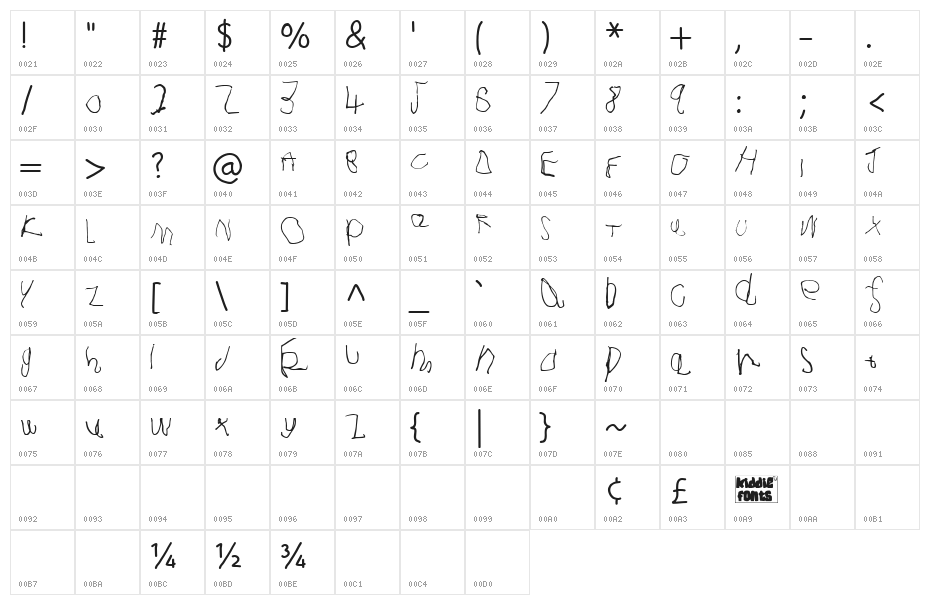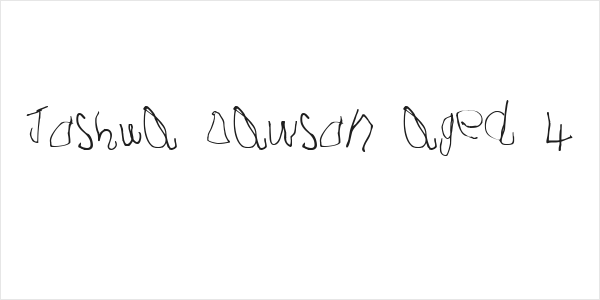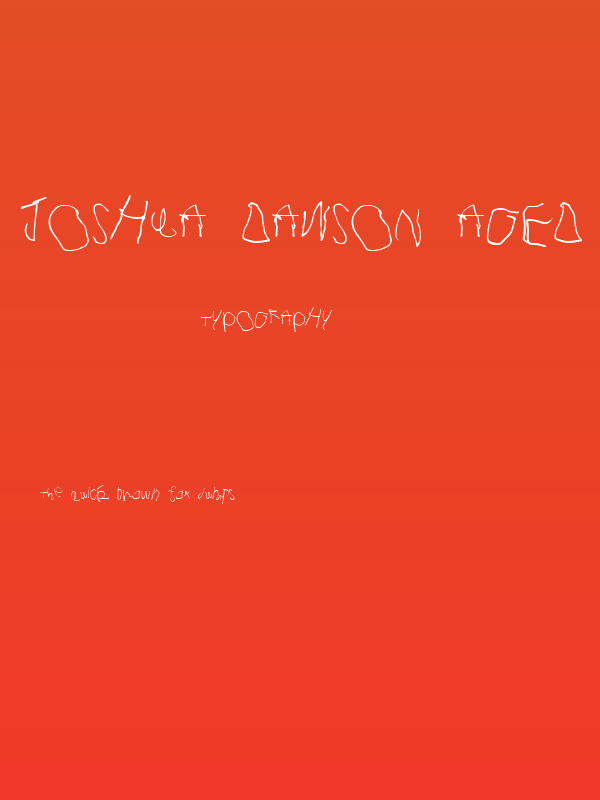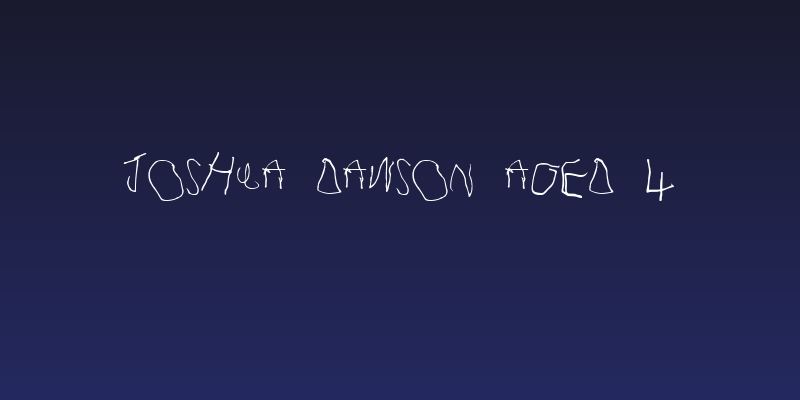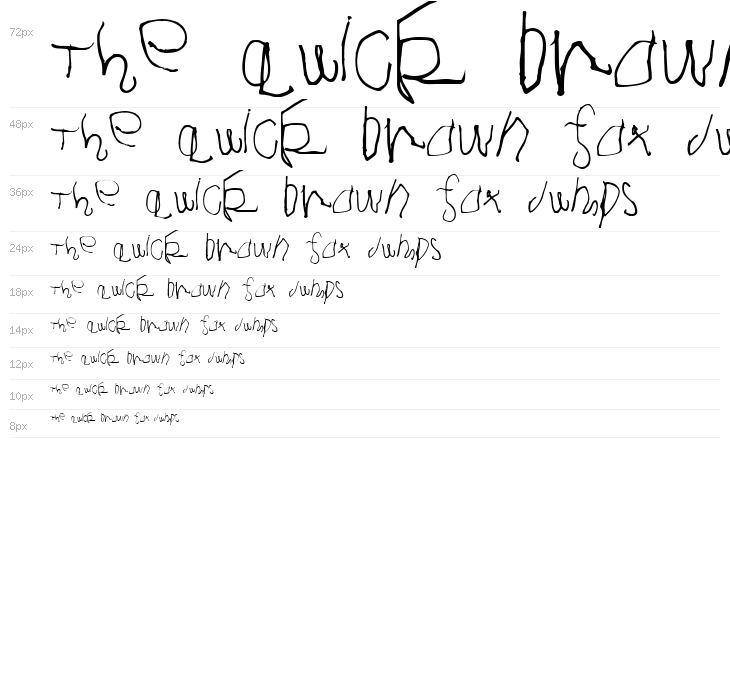
Joshua Dawson aged 4 Font
Joshua Dawson aged 4 Description
This font exhibits a playful and childlike quality, characterized by its irregular and whimsical strokes. The letters are unevenly sized and spaced, giving it an authentic, handwritten feel. The uppercase and lowercase letters share a similar style, with a noticeable lack of uniformity that adds to its charm. Numbers and special characters follow the same playful design, making the font suitable for informal and creative projects. The overall appearance is reminiscent of a child's handwriting, with a sense of spontaneity and innocence.
| Overall Style | Playful, Childlike |
| Use Case | Creative projects, Informal text, Children's materials |
| Proposed Projects | Ideal for children's books, educational materials, playful greeting cards, and creative art projects. |